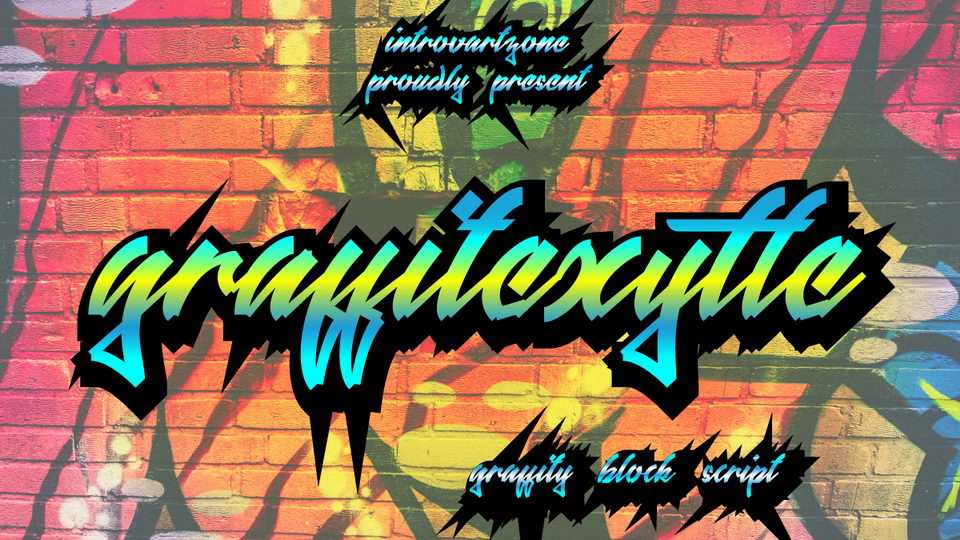
Graffitexytte Font › Fontesk
Download Graffitexytte font, a graffiti script with a block script style, inspired by street writings with high artistic value. Graffitexytte is suitable for adding a unique and striking touch to your print designs, such as tshirts, stickers, flyers, and so on.
Designer: IntrovArtZone